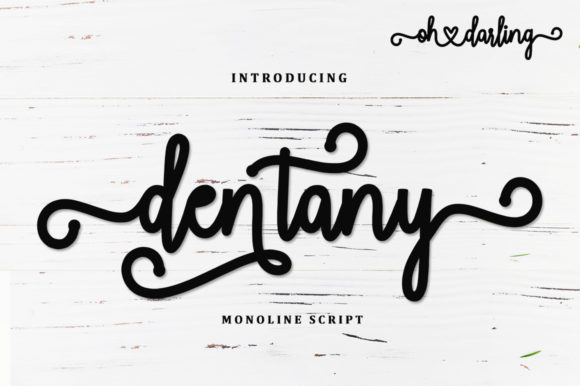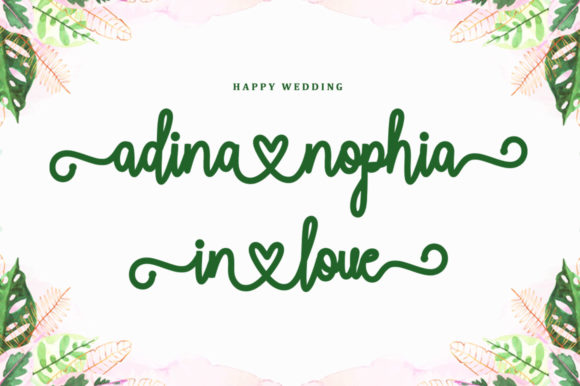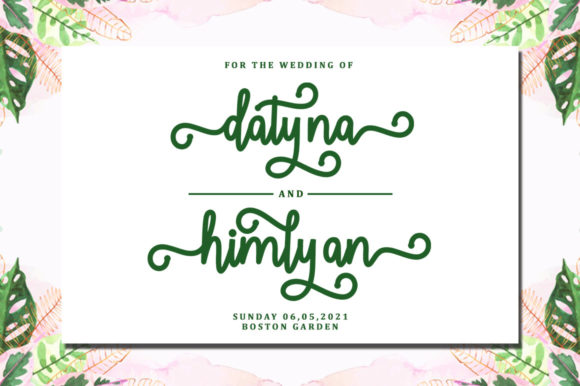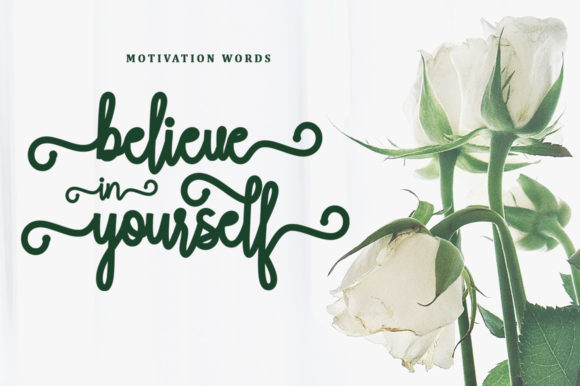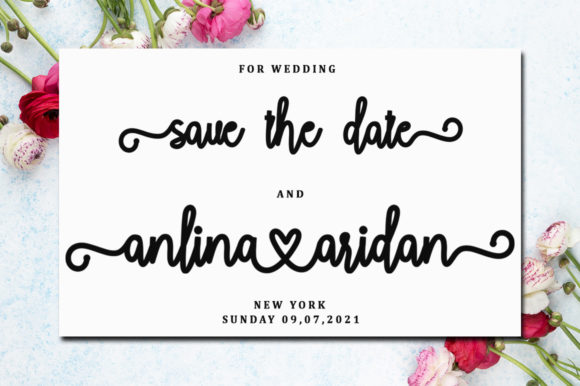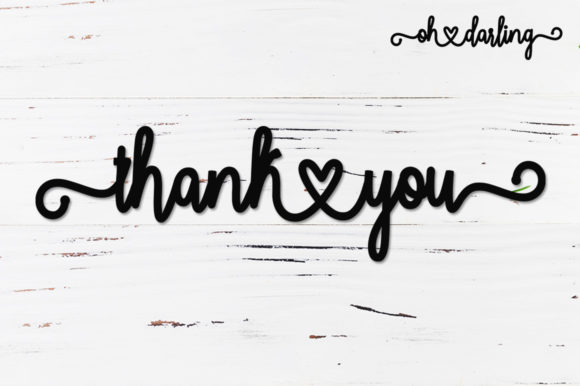
Dentany Font
About Dentany Font
Introducing “Dentany,” a modern calligraphy script font that exudes a beautiful style, connecting with the heart and designed with meticulous detail to present a luxurious aesthetic. Its classic and timeless design makes it exceptionally suitable for various formal applications, ranging from invitations, labels, and restaurant menus to logos, fashion, makeup, stationery, novels, magazines, books, greeting/wedding cards, packaging, and more.
“Dentany” showcases a sophisticated calligraphy style, making it an ideal choice for projects where elegance and a luxurious touch are paramount. The high level of detail in its design ensures that this font stands out and adds a touch of refinement to any application.
Imagine “Dentany” as the perfect complement to your formal and elegant design projects. Whether you’re creating invitations for special events, designing a logo for a high-end brand, or crafting a novel cover, let this font be the element that brings a luxurious and timeless style to your work.
In summary, “Dentany” is more than just a font; it’s a modern calligraphy script designed with meticulous detail to deliver a luxurious and classic style to a wide array of design applications. Embrace its versatility and let it be the font that adds an exquisite touch to all your formal and sophisticated design needs.